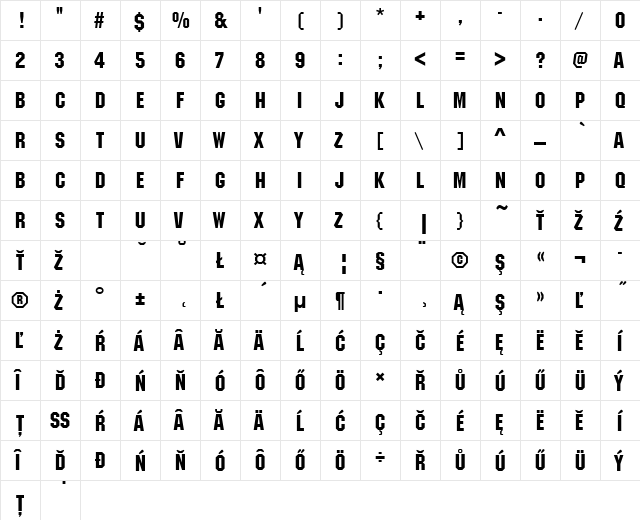
MachineItcDEE Regular
Design Context for MachineItcDEE Typeface
MachineItcDEE offers clean, dependable letterforms without strong stylistic allegiance, making it a practical choice for designers who need flexibility.